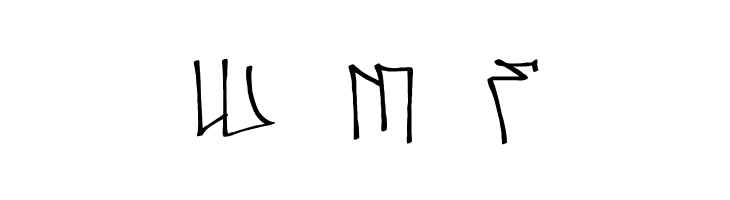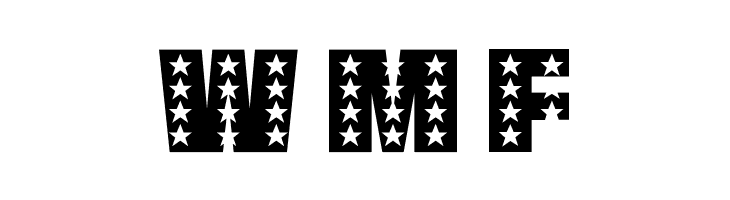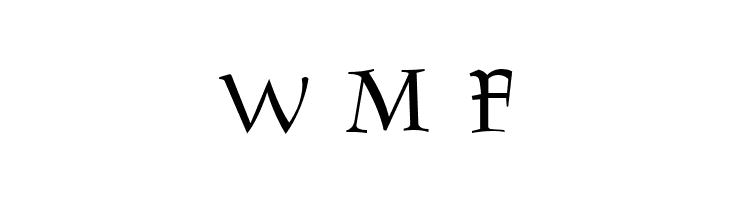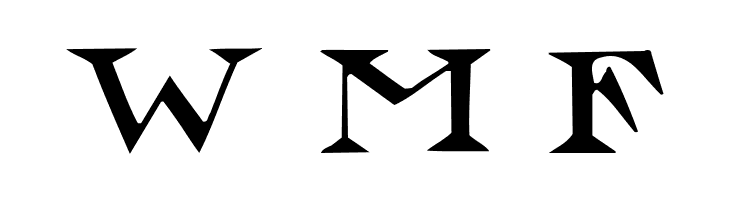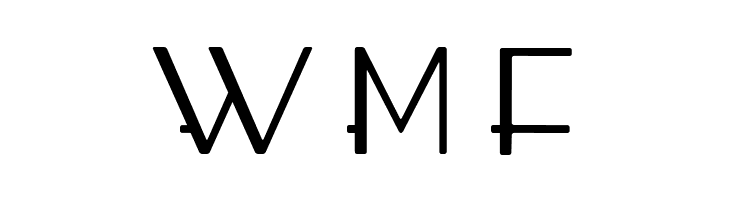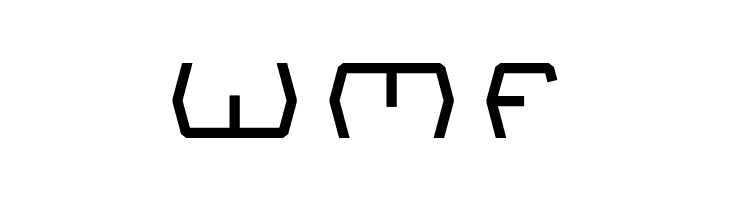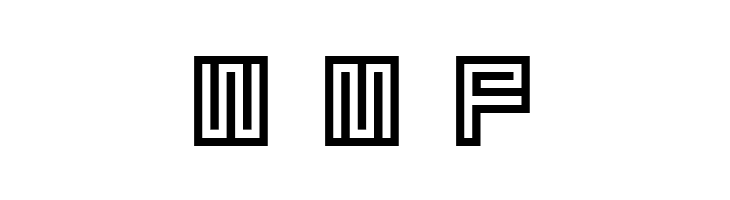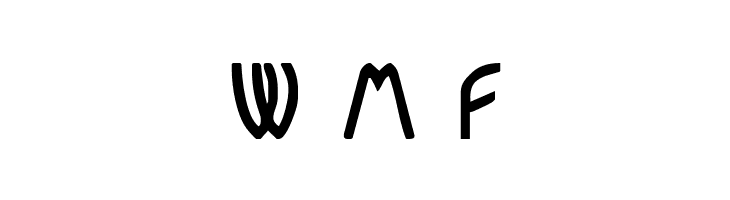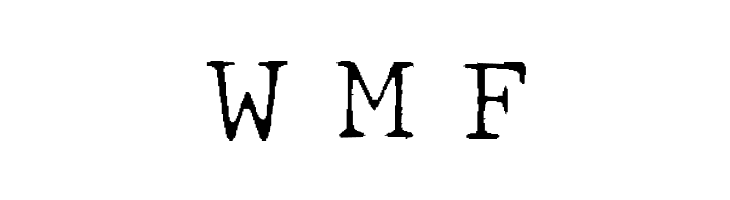
A bold, rounded font with an organic, playful design.
A modern, futuristic font with bold, rounded strokes and a playful yet sophisticated style.
A geometric, angular font with a modern, edgy style.
A modern, dotted decorative font with a playful and unique style.
A bold, geometric font with angular and distinctive characters.
( work2survive - Manuel Campagnoli )
A modern, playful font with geometric and organic elements.
( ADT )
A decorative font with geometric shapes and playful curves, blending modern and vintage styles.
( ATRAX - antraxja-fonts.iweb.pl/en/ )
A modern, elegant font with tall, narrow uppercase letters and distinctive lowercase features.
( BitmapMania - bitmapmania.m78.com/ )
A bold, geometric font with a maze-like, futuristic design.
( Character )
A tall, narrow font with a sleek, modern design.
( Danny Amor - formerly at penelope.cli.di.unipi.it/~amor/ )
A geometric and angular font with modern and vintage influences.
( Fonts on us )
A bold, curvy font with a playful and distinctive style.
( George Williams - web.archive.org/web/20051223080638/bibliofile.mc.duke.edu/gww/fonts/fonts.html )
A decorative font with artistic curves and distinctive serifs.
( George Williams - web.archive.org/web/20051223080638/bibliofile.mc.duke.edu/gww/fonts/fonts.html )
A stylish and artistic font with modern and vintage elements, featuring unique decorative flourishes.
( Glyphobet Font Foundry - glyphobet.net/typography/ )
A highly decorative and artistic font with whimsical, abstract elements.
( GroovyJournal - www.groovyjournal.com )
A bold, outlined font with diagonal hatching for a playful yet structured look.
( Herofonts - www.herofonts.com )
A modern, geometric font with clean lines and a distinct angular design.
( Joorgemoron@gmail.com )
A classic typewriter-style font with monospaced characters and distinct serifs.
( KELGE Fonts - www.behance.net/contactkel17e1 )
A sharp, elongated font with a distinctive and eerie style.
( Lutz Baar - baar.se/aidfonts/ )
A bold, dynamic font with a hand-drawn, artistic style.
( Matias Romero - matiasromero.deviantart.com )
A modern, geometric font with bold, narrow uppercase and rounded lowercase letters.
( Out Of Step Font Company - outofstepfontco.com )
A modern, hand-drawn font with geometric and abstract characteristics.
( Pat Snyder - www.patsnyderartist.com/patsnyder_fonts.html )
A bold, decorative font with stars and stripes, ideal for thematic designs.
( Perry Mason )
A bold, stencil-style font with geometric shapes and distinct cut-out sections.
( Robert Pfeffer - robert-pfeffer.net/schriftarten/englisch/index.html )
A bold, geometric font with angular lines and a strong visual impact.
( Roger White - web.archive.org/web/20120416090521/www.rogersfonts.org.uk/ )
A bold, angular font with a geometric, gothic-inspired design.
( Roger White - web.archive.org/web/20120416090521/www.rogersfonts.org.uk/ )
A distinctive serif font with sharp angles and a blend of traditional and modern styles.
( Roulette Studios - www.roulettestudios.com )
A bold, angular serif font with a distinctive, edgy appearance.
( Solar Sister - web.archive.org/web/20050308194059/www.hellostranger.com/solarsister/ )
A whimsical, vintage-style font with bold serifs and playful character shapes.
A modern, italicized font with a distinctive diagonal stripe pattern.
( Fonts by Paul Reis - Personal-use only. For commercial use please contact owner. )
A modern geometric font with unique circular elements and bold structure.
A bold, geometric font with a distinct outline style, perfect for modern and impactful designs.
A geometric, rotated inline font with a playful and modern design.
A bold, decorative font with a retro inline design.